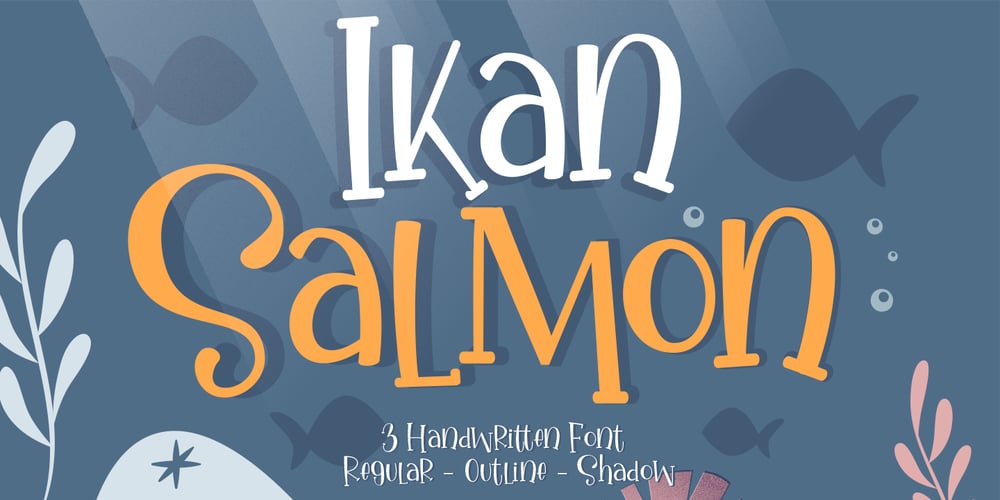
Ikan Salmon
Ikan Salmon font
Ikan Salmon Font Family was designed by Gumilar Pratama Adiatna and published by Gilar Studio. Ikan Salmon contains 3 styles and family package options. Ikan Salmon a Handwritten Display Font With 3 Style (Regular,Outline and Shadow)You Can Mix And Match for Your Awesome ProjectThis fonts is ideal for crafting, branding and decorate your any project. This fonts are perfect for wedding invitation or your blog. Also with their help, you can create a logo or beautiful frame for your home. Or just use for your business, book covers, stationery, marketing, magazines and more.FEATURES :Uppercase & LowercaseNumber & PunctuationMore than 254 of glyphsMultilingual LanguagePUA Encode27 LigaturesAlternateThe alternative characters were divided into several Open Type features can be accessed by using Open Type savvy programs such as Adobe Illustrator, Adobe InDesign, Adobe Photoshop Corel Draw X version, And Microsoft Word. And this Font has given PUA unicode (specially coded fonts). so that all the alternate characters can easily be accessed in full by a craftsman or designer.If you don’t have a program that supports OpenType features such as Adobe Illustrator and CorelDraw X Versions, you can access all the alternate glyphs using Font Book (Mac) or Character Map (Windows).To Access Alternate Characters Click The Link Below:Adobe illustrator CS https://www.youtube.com/watch?v=geL0Ye02RykAdobe illustrator CC https://www.youtube.com/watch?v=V25yiUh8BcEMs Word https://www.youtube.com/watch?v=HxkhZiCuwEwCoreldraw X7 https://www.youtube.com/watch?v=UBVsufJjonsAdobe Photoshop CC https://www.youtube.com/watch?v=BYKXl58AdNYIndesign CS https://www.youtube.com/watch?v=HgZTCxKG14QCheck my other Font here : https://gilarstudio.com/